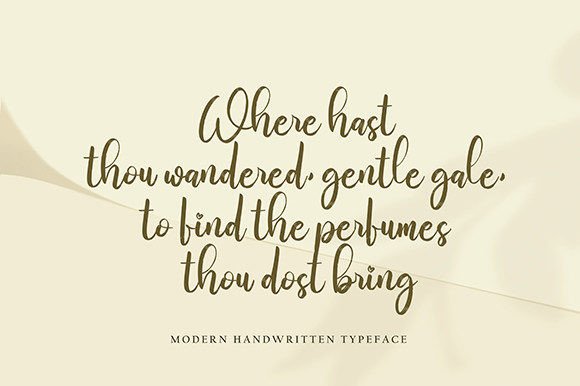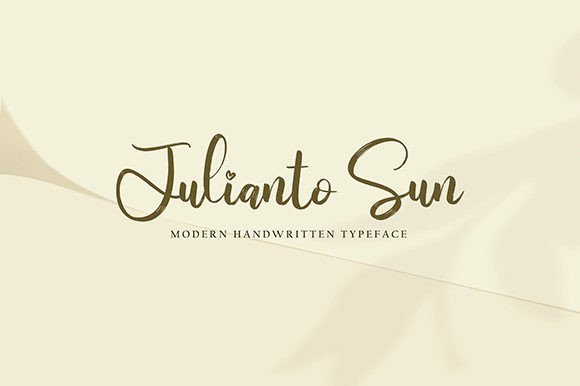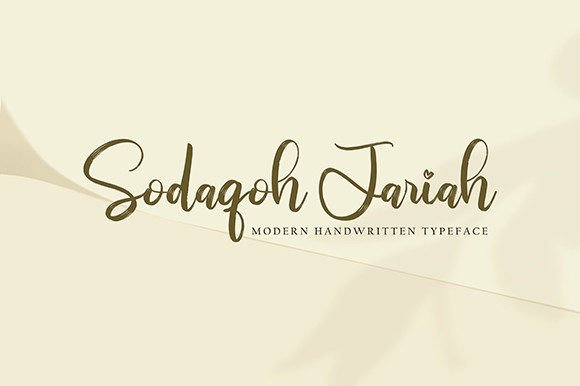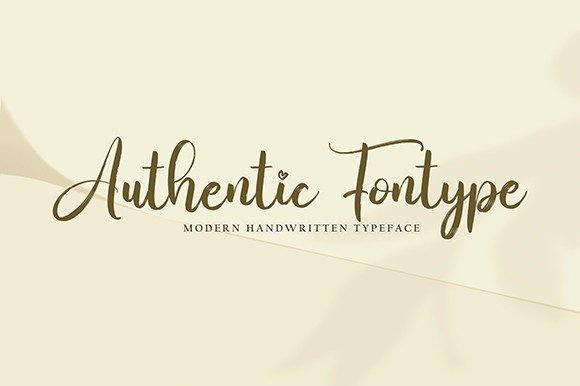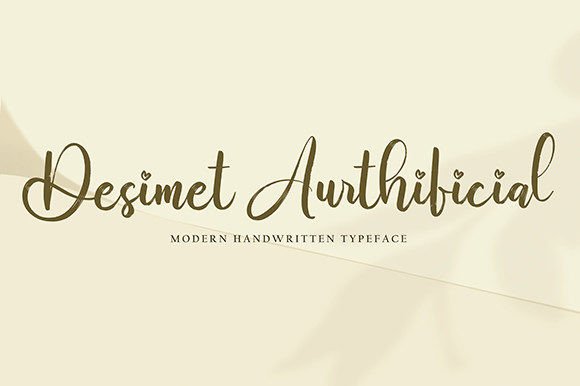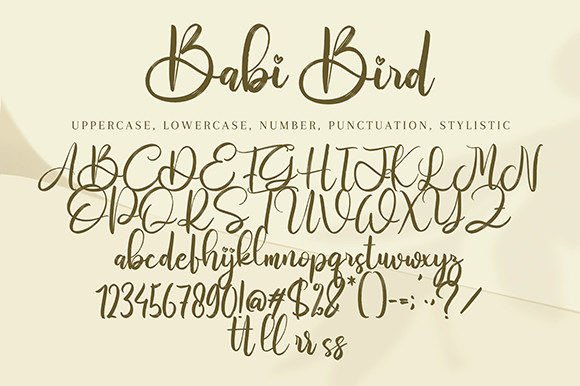
Babi Bird Font: Elevate Your Designs with Elegance and Sophistication
In the world of typography, fonts play a crucial role in conveying the tone and personality of a brand, product, or service. For designers and crafters seeking to add a touch of luxury and refinement to their projects, the Babi Bird font is an excellent choice. This stylish script font exudes sophistication and class, making it perfect for high-end branding, wedding invitations, editorial design, and more.
The Characteristics of Babi Bird Font
Babi Bird is a script font that boasts flowing lines and elegant curves, creating a sense of movement and fluidity. Its natural, handwritten feel adds a personal touch to any project, making it ideal for designers who want to create a unique and distinctive look. The font’s sophisticated and refined aesthetic makes it suitable for a wide range of applications, from luxury branding to wedding stationery.
Key Features of Babi Bird Font
• Elegant Script Style: Babi Bird features a beautiful, flowing script style that adds a touch of sophistication to any design.
• Natural Handwritten Feel: The font’s natural, handwritten feel creates a personal and unique look that’s perfect for designs that require a human touch.
• High-End Aesthetic: Babi Bird’s refined and luxurious aesthetic makes it ideal for high-end branding, editorial design, and wedding invitations.
• Versatile: The font is versatile and can be used for a wide range of design projects, from digital designs to print materials.
Uses of Babi Bird Font
Babi Bird font is perfect for a variety of design projects, including:
• Luxury Branding: Use Babi Bird to create a sophisticated and refined brand identity that exudes elegance and class.
• Wedding Invitations: Add a touch of luxury and romance to your wedding invitations with Babi Bird’s elegant script style.
• Editorial Design: Use Babi Bird to create beautiful and sophisticated editorial designs, such as magazine covers, articles, and typography-driven layouts.
• Digital Designs: Babi Bird is perfect for digital designs, including social media graphics, website headers, and email newsletters.
Tips for Using Babi Bird Font
To get the most out of Babi Bird font, here are some tips to keep in mind:
• Use it sparingly: Babi Bird font is best used sparingly to add a touch of elegance and sophistication to your designs.
• Pair it with neutral fonts: Pair Babi Bird with neutral fonts, such as sans-serif fonts, to create a beautiful contrast and add visual interest to your designs.
• Experiment with colors: Babi Bird font looks stunning in a variety of colors, so don’t be afraid to experiment and find the perfect color to match your brand or design.
Babi Bird font is a stylish and sophisticated script font that adds a touch of elegance and class to any design project. Its natural, handwritten feel and flowing lines create a sense of movement and fluidity, making it perfect for high-end branding, wedding invitations, editorial design, and more. With its versatility and range of uses, Babi Bird font is an excellent choice for designers and crafters seeking to create beautiful and refined designs.